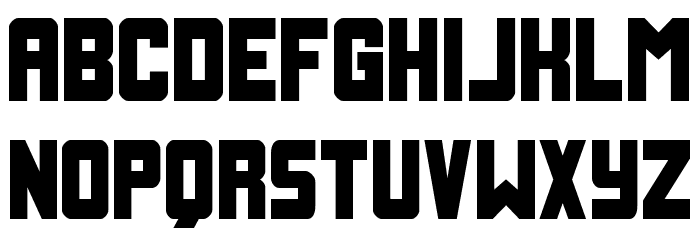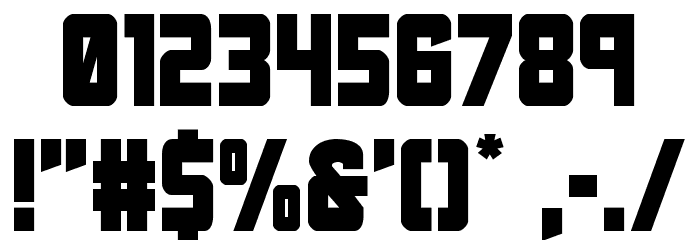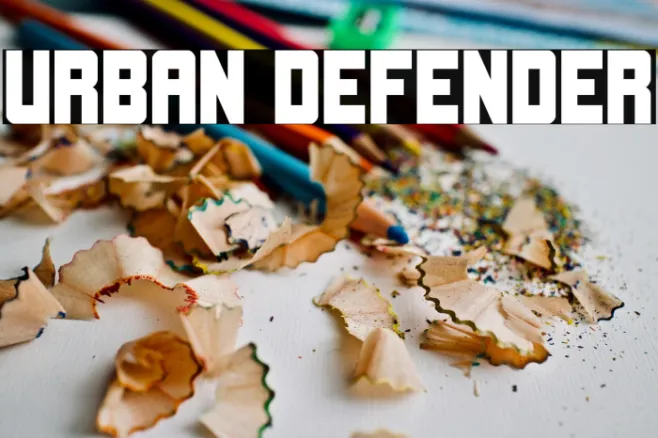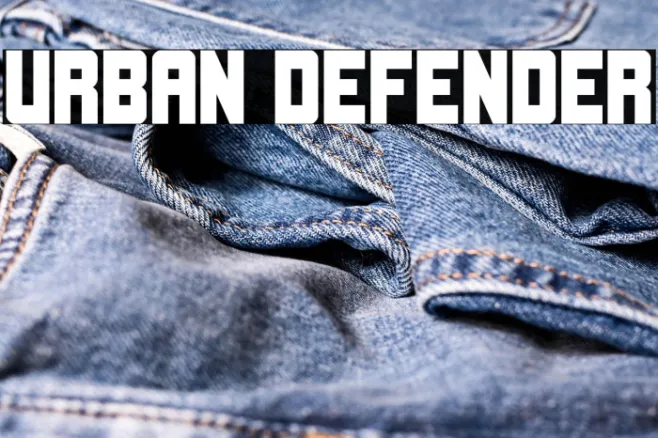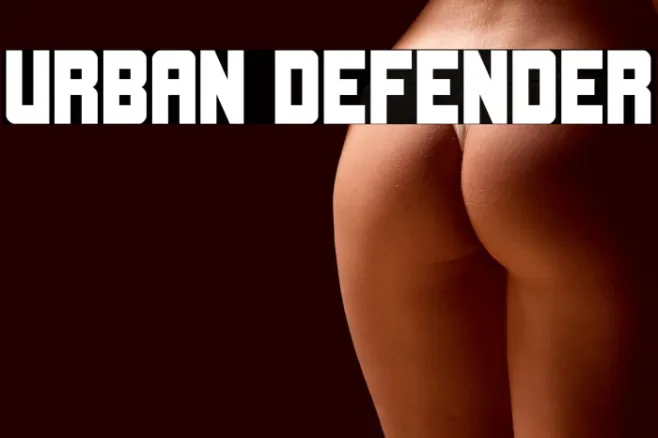
Urban Defender Font
This font features a bold, geometric design with a strong, urban aesthetic. The characters are blocky and angular, giving a sense of strength and modernity. The uppercase letters are uniform in height, with sharp edges and a consistent stroke width. The numerals and special characters maintain the same boldness and geometric style, ensuring a cohesive look across all characters. This font is designed to stand out, making it ideal for impactful headlines and attention-grabbing designs.
A bold, geometric font with a strong urban aesthetic.
- Font: Urban Defender
- Proposed Projects: Ideal for urban-themed posters, sports branding, video game titles, and streetwear logos.